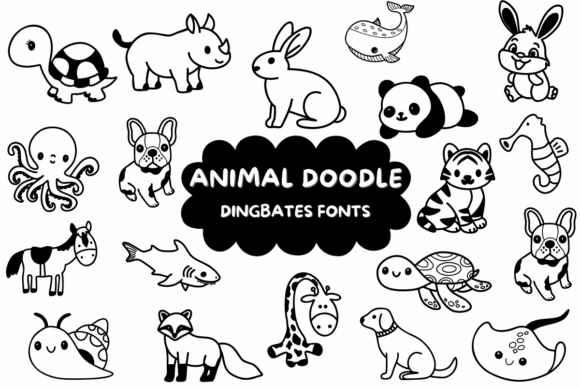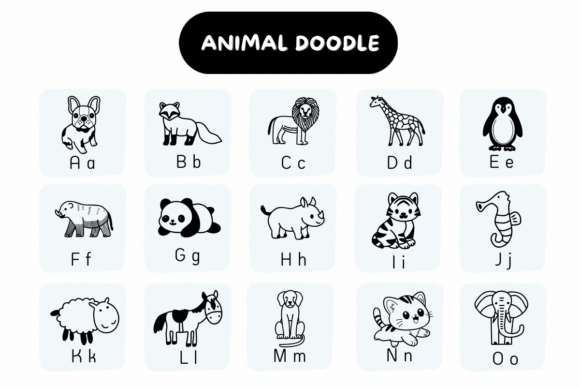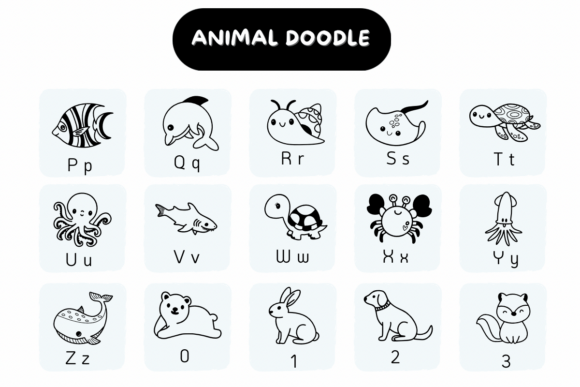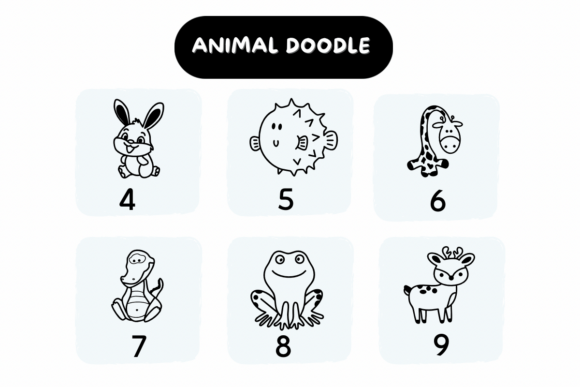
About the Animal Doodle Font
Discover the charm of Animal Doodle Font. This font is a perfect blend of modern aesthetics and classic appeal. Animal doodle is a dingbats font with a sketched style. This font can enhance your creative projects such as wedding invitations, DIY, crafts, decorations, logos, and many other creative ideas.
Animal Doodle Font’s sketched style makes it ideal for projects requiring a playful, hand-drawn feel. It excels in logos, branding for children’s products or playful businesses, short headlines, and decorative elements within larger designs. Avoid using it for lengthy body text or UI elements; its informal nature compromises readability in continuous paragraphs.
Consider pairing Animal Doodle with a clean sans-serif like Open Sans for a balanced contrast, or a more geometric sans-serif such as Futura for a modern feel. For a softer contrast, a delicate serif like Lora would complement its hand-drawn charm.
The font’s overall personality is undeniably friendly and approachable, making it a great choice for projects targeting a youthful or lighthearted audience. Its whimsical nature should be considered when selecting accompanying imagery and color palettes.
Animal Doodle Font Usage Examples
Animal Doodle Font Example